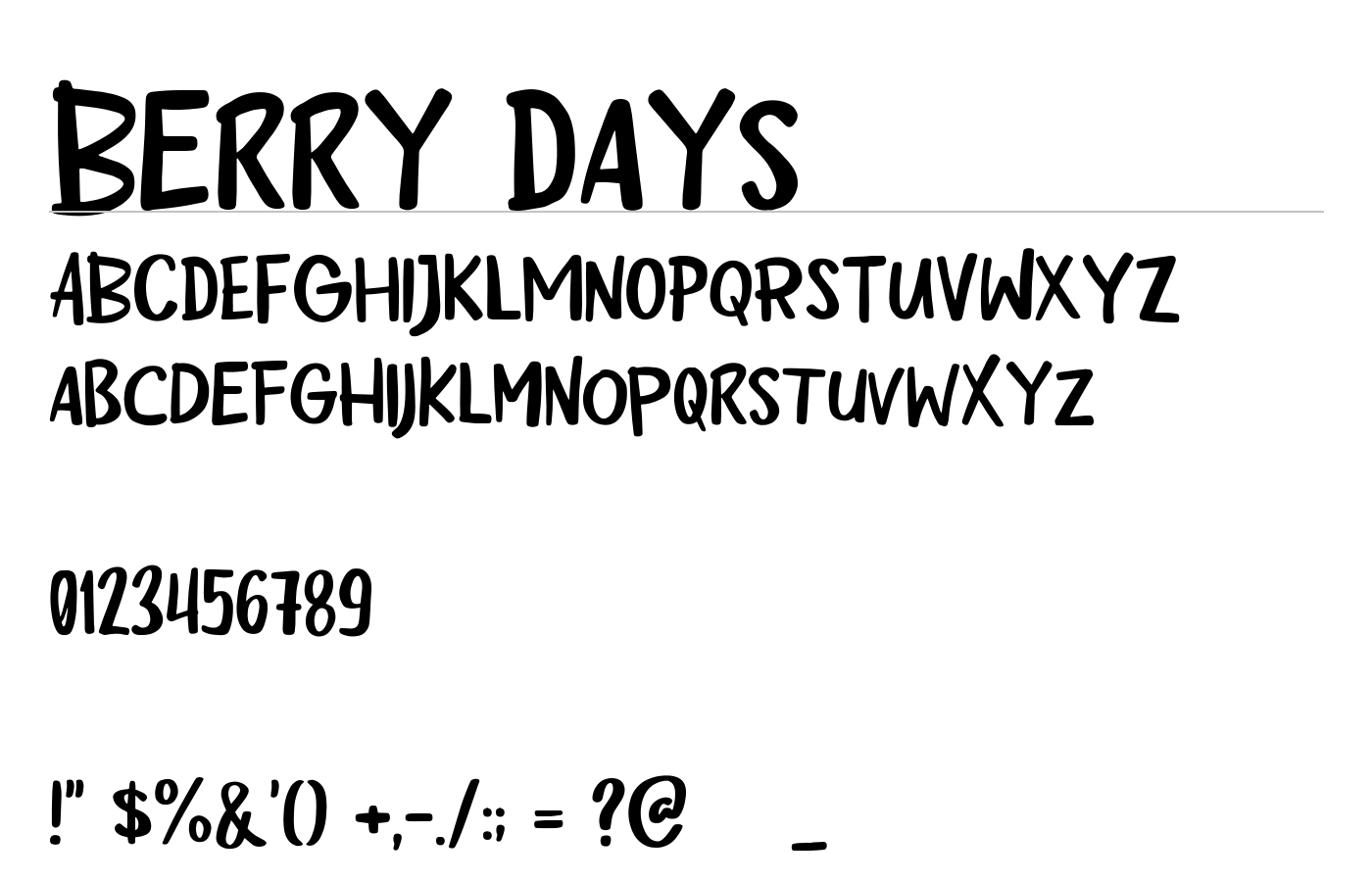
Berry Days is a playful, hand-drawn sans serif font with a casual, friendly feel. Its irregular strokes and slightly condensed forms give it a lively personality, making it perfect for creative projects, children’s designs, and informal branding that needs a warm, approachable tone. This font works well for headlines, logos, and packaging that want to convey fun and spontaneity.
Berry Days Font
About Berry Days Font